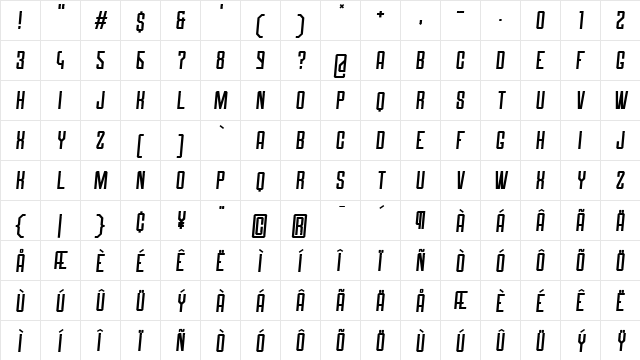
Roguedash Solid Italic
Design Context for Roguedash Solid Typeface
Roguedash Solid offers clean, dependable letterforms without strong stylistic allegiance, making it a practical choice for designers who need flexibility. The slanted form adds forward momentum and visual energy.
Pro Tip: Use Roguedash Solid for emphasis, pull quotes, and subheadings where its slanted energy can add rhythm to the layout.